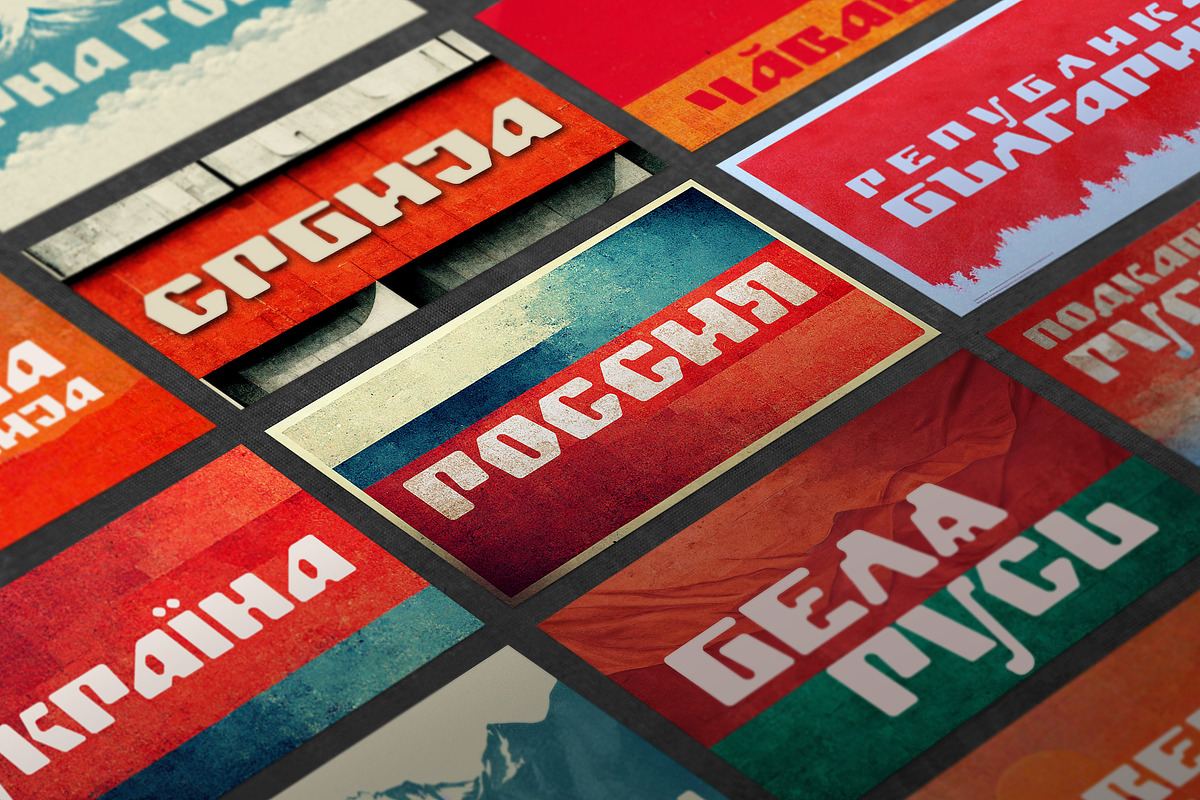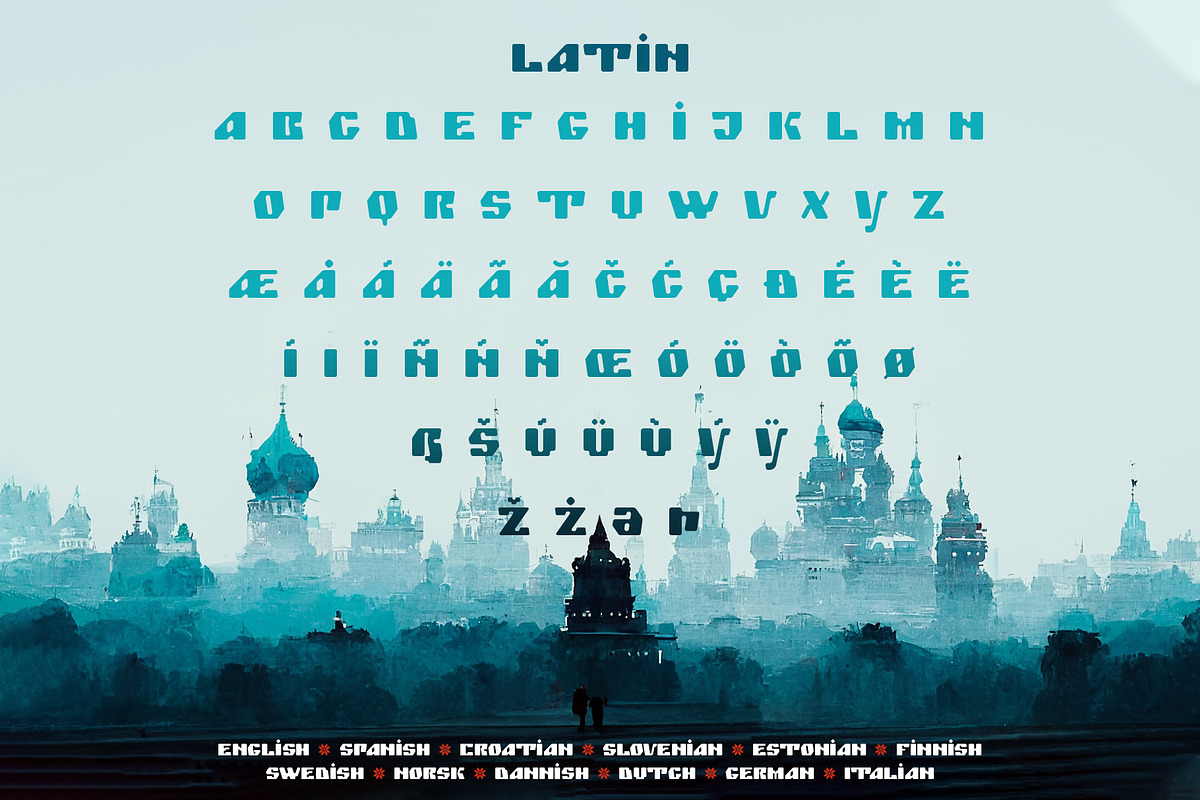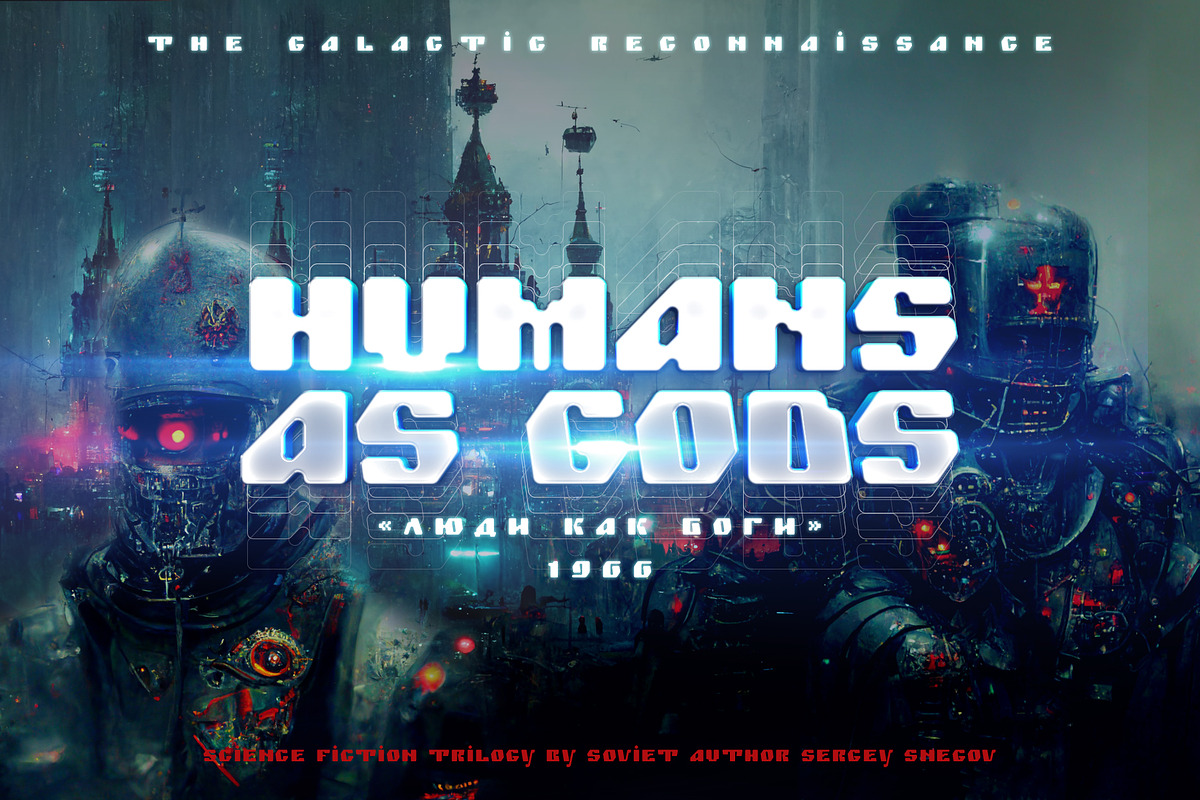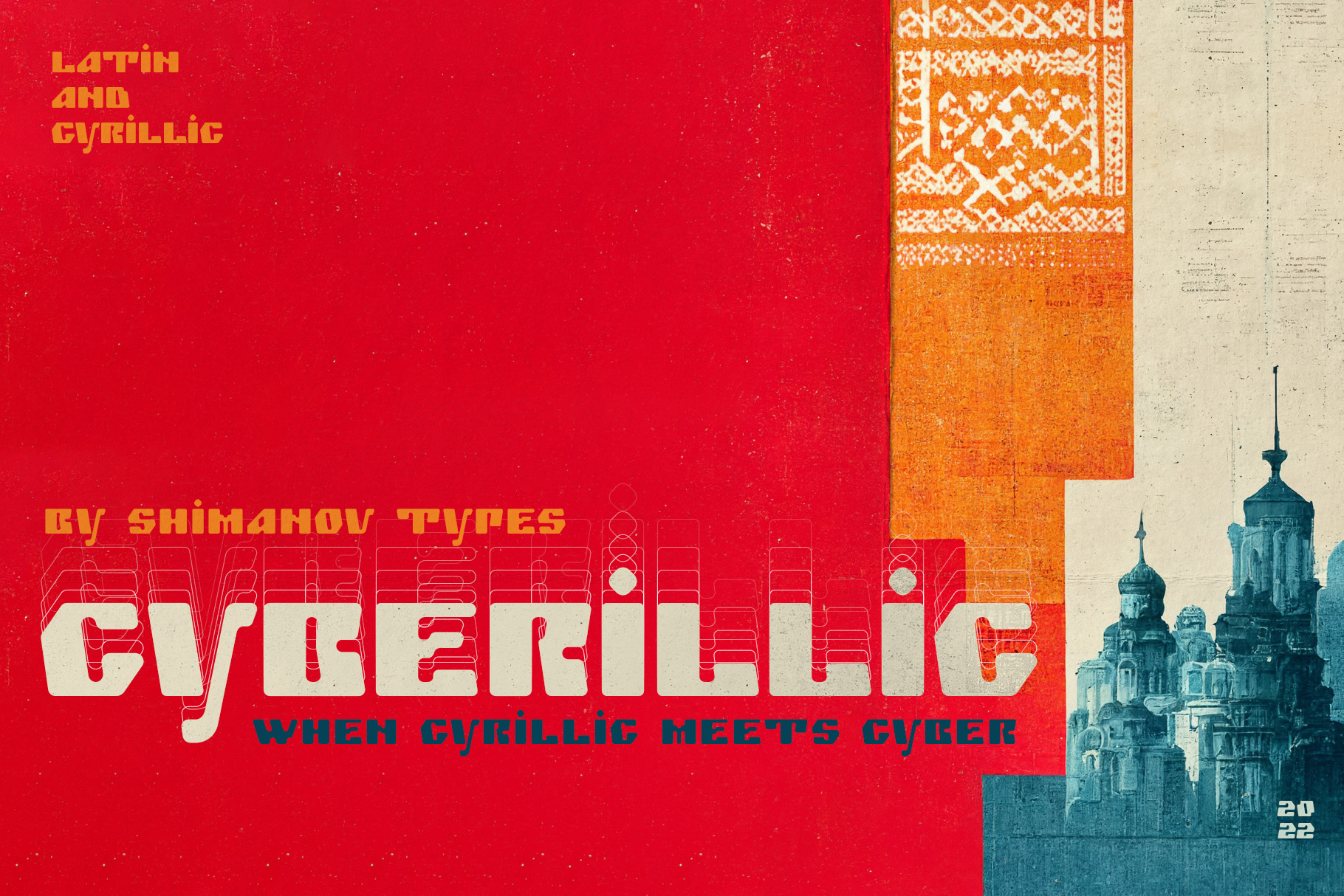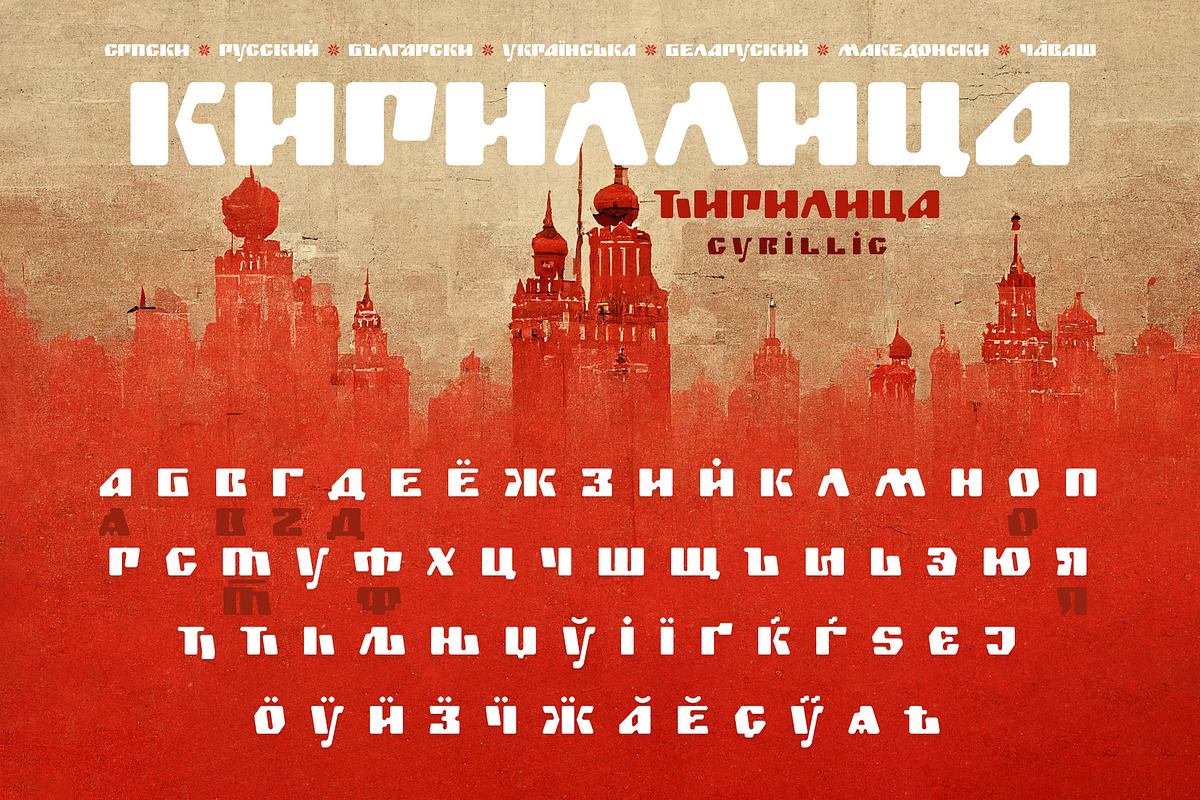
ST-Cyberillic cyber cyrillic font
The font ST-Cyberillic is a mix of ancient slavic letters style called "Ustav" and some cyber code expression. This is display font for posters, headers, logos and package design.
Language support: Russian, Belorussian, Ukrainian, Bulgarian, Serbian, Croatian, Macedonian, Slovenian, English, Spanish, Estonian, Finnish, Swedish, Norsk, Dannish, Dutch, German, Italian, Chuvash.
Small caps only, numerals and basic punctuation.